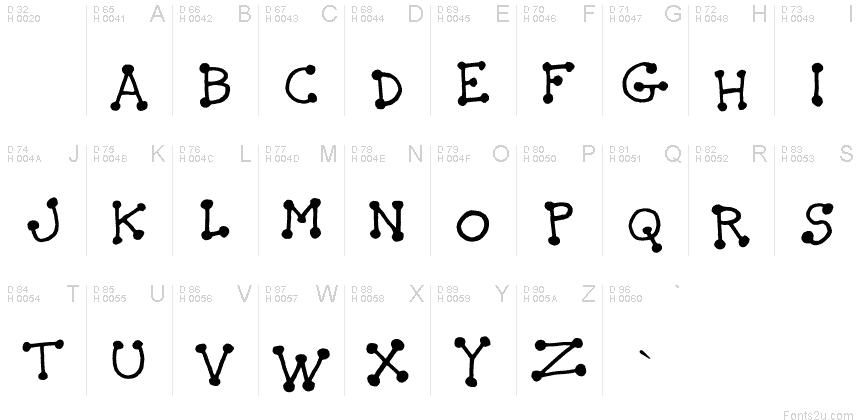
The Idiot by Imagex is a free decorative display font with gangly, narrow letters that resemble loosely assembled cartoon bones. Uneven strokes swell into odd knobby ends and crooked joints.
Macabre comedy and offbeat children's entertainment are natural territory for this eccentric design, especially on Halloween posters, game graphics, and novelty merchandise. The repeated knobby shapes can turn a snack label or toy brand into a small illustrated identity, with the lettering functioning almost like a row of cartoon bones.